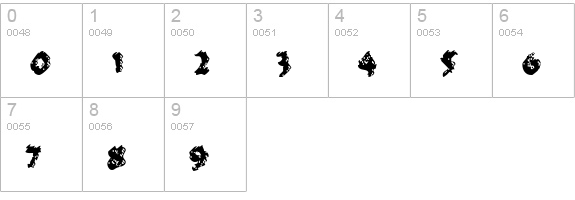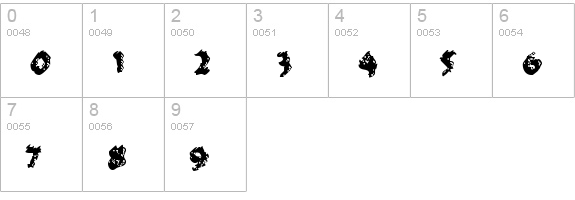
Ambrosius Aurelianus Font Details
The Ambrosius Aurelianus font is a stunning display typeface that exudes elegance and sophistication. With its intricate details and classic appeal, this font is perfect for creating eye-catching designs that command attention. The Ambrosius Aurelianus font is meticulously crafted to bring a touch of timeless beauty to any project, whether it's for branding, packaging, invitations, or any other creative endeavor. The best part about the Ambrosius Aurelianus font is that it is available for free! You can easily download this exquisite typeface at FontsMarket.com and start using it in your designs right away. Don't miss out on the opportunity to add a touch of luxury and refinement to your projects with the Ambrosius Aurelianus font.